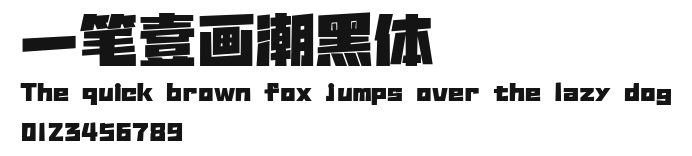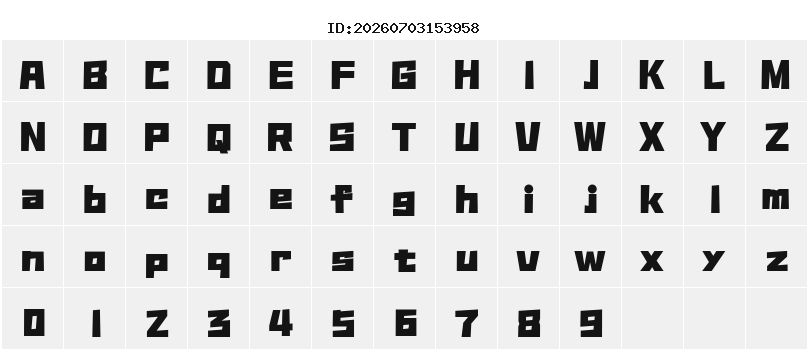
一笔壹画潮黑体 Preview
• Font Name: 一笔壹画潮黑体
About 一笔壹画潮黑体.ttf
一笔壹画潮黑体.ttf is a modern, elegant sans-serif font designed for ultimate readability and visual harmony. Perfect for branding, headlines, web design, and print materials.